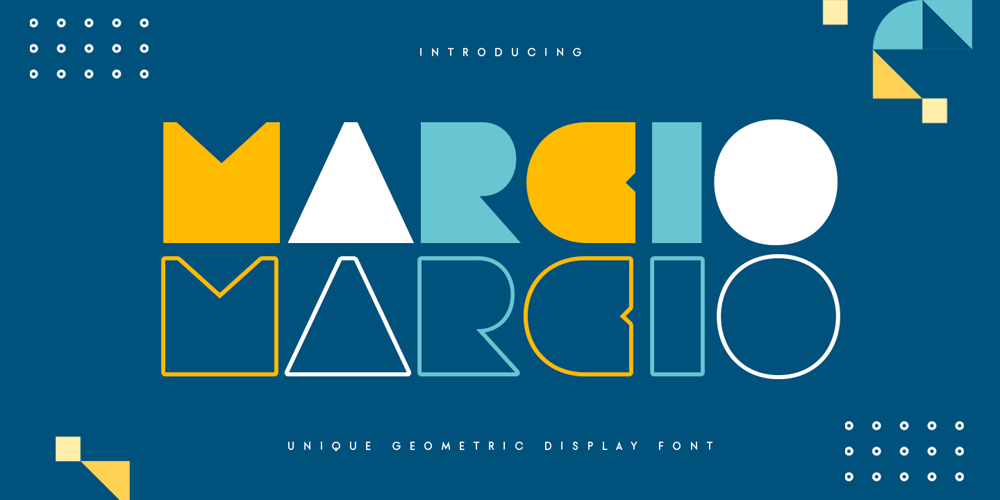
Marcio Font Family was designed by Zamroni Hamzah and published by Sensatype Studio. Marcio contains 2 styles and family package options. Marcio is an Unique Geometric Display Font that perfect for headline, branding, logo, poster design, etcA new Display Font that we created special for Headline, Title and more stand out typography needs. It’s so perfect to add your style and headline overview. And specially for Marcio font, we crafted for unique style and modern feels so enjoy to create any project that will show your main idea out.Marcio Unique Geometric Display Font ready with: Unique style with Regular and Outline to get creative variations 4 files format already Preview as a inspirations that you can do with Marcio font Ready with All characters Uppercase Wish you enjoy our font. ๐